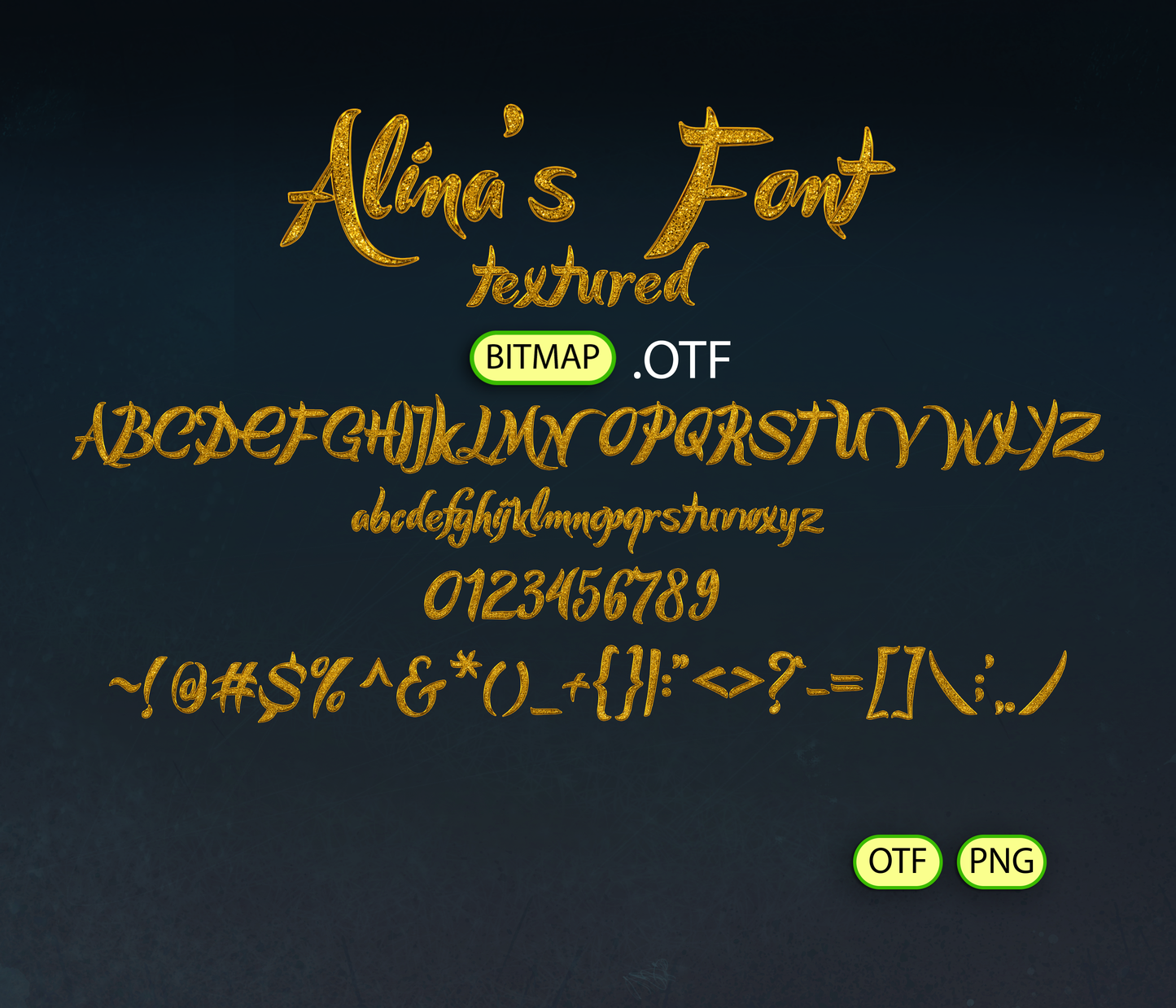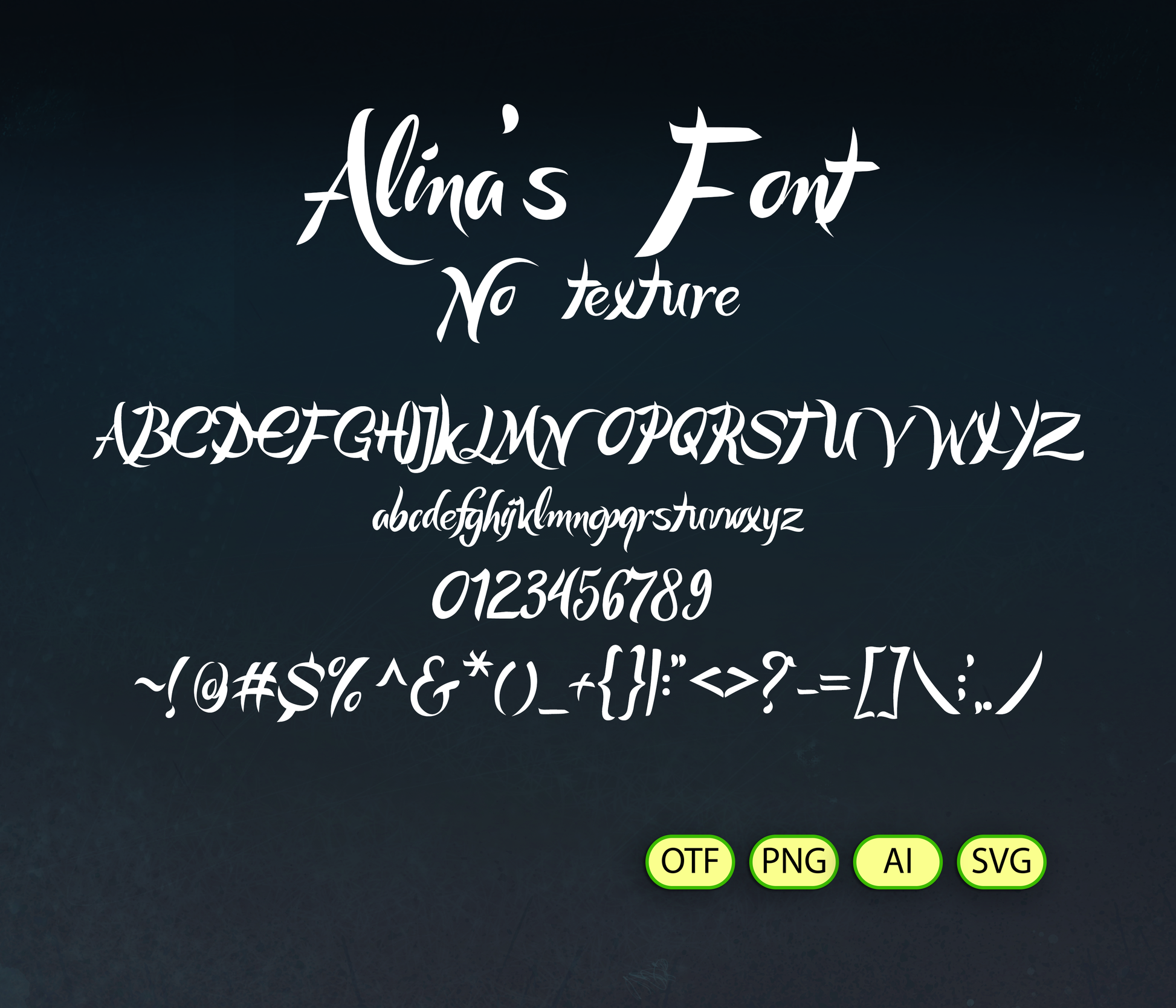
Magical Arabian Nights Font Textured
Magical Arabian Nights Font
Step into the enchanting world of a beloved Arabian tale with our Magical Arabian Nights font. This typeface captures the essence of a classic animated adventure, bringing to life the mystical charm and whimsical spirit of an unforgettable street urchin turned prince. Perfect for fans, designers, and dreamers alike, this font infuses your projects with the magic of flying carpets, mischievous genies, and dazzling palaces.
What font is the Magical Arabian Nights font?
Imagine a typeface that embodies the swirling sands of an ancient desert kingdom and the flowing curves of exotic calligraphy. Our Magical Arabian Nights font is designed to mirror the distinctive look of the animated classic, featuring bold, sweeping letterforms that evoke images of magic lamps and wish-granting spirits. It includes a comprehensive character set with alphabets, numbers, and special symbols, offering a complete solution for various design projects.
What You Can Do With Magical Arabian Nights Textured Font
This versatile font is ideal for a wide range of creative applications:
- Themed Party Invitations: Create unique and magical invitations for Arabian Nights-themed events or movie nights.
- Children's Merchandise: Perfect for designing apparel, toys, and accessories that capture the wonder of a whole new world.
- Digital Content: Use the font to add a touch of magic to websites, blogs, and social media posts.
- Educational Materials: Incorporate the font into teaching resources about Middle Eastern culture or folklore.
- Greeting Cards and Stationery: Design personalized stationery or greeting cards with an enchanting Arabian flair.
- Promotional Materials: Use in advertising campaigns for family-friendly products or events.
- Interior Decor: Create wall art, decals, or signage for children's rooms, play areas, or themed restaurants.
- Event Signage: Develop eye-catching signs and banners for fantasy-themed events or conventions.
- Book and Magazine Design: Use in publications focusing on animation, fairy tales, or Middle Eastern culture.
- Creative Art Projects: Ideal for crafting, scrapbooking, and artistic projects inspired by Arabian adventures.
- Textured and Non-Textured Variants: Each font is available in both a magical, shimmer-inspired style and a clean, non-textured version for diverse design needs.
- Comprehensive Character Set: Offers a wide range of characters for complete design versatility.